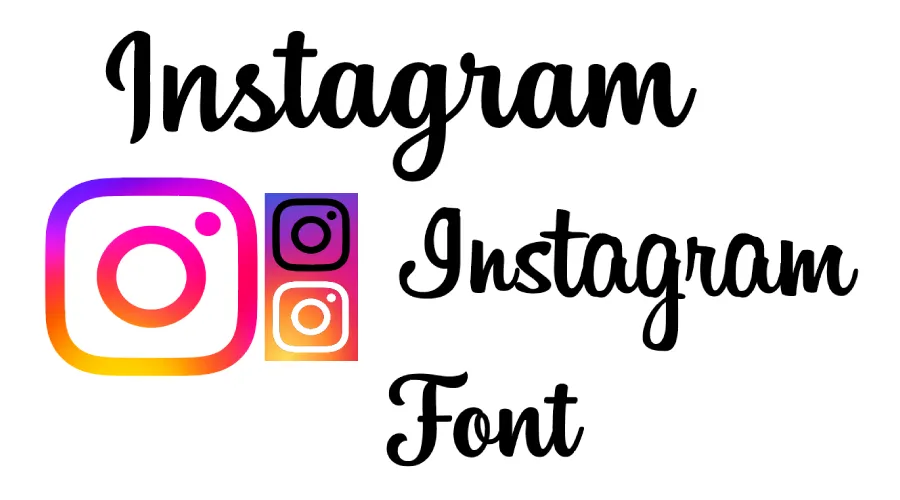
Instagram Logo Fonts
The Instagram logo, particularly the wordmark, has undergone various changes. Below I will show you year wise instagram font that is free to download and look similar to the logo font.
Instagram 2010 Logo
Instagram’s original logo, which was used from its inception in 2010 until 2016, featured a script typeface that was very similar to the Billabong font.
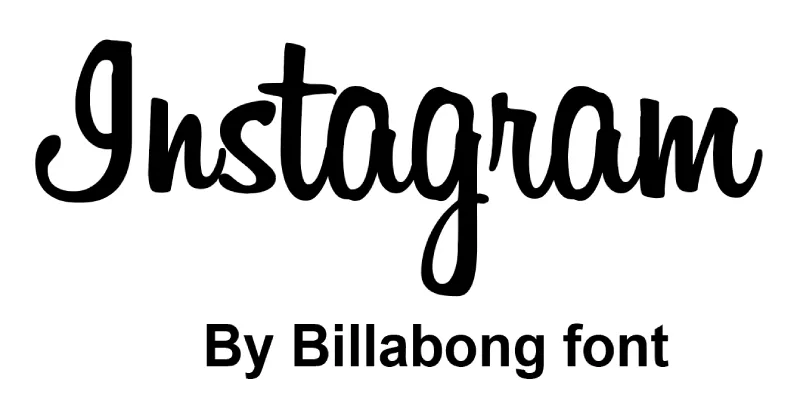
Billabong is a script font known for its casual and retro feel, which was in line with Instagram’s initial branding that focused on nostalgia and the classic, instant camera aesthetic.
Instagram 2016 Logo
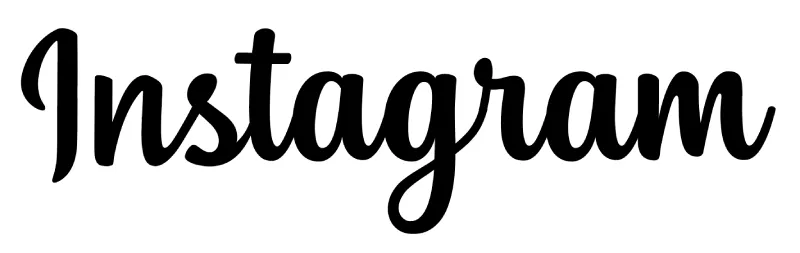
In 2016, Instagram underwent a significant rebranding, introducing a new, simplified logo. This new logo moved away from the retro script and featured a more modern, flat design with a gradient color scheme.
From my research there is a font which is very close to the 2016 Instagram Logo font is called The Grandista font, designed by Mytha Studio.
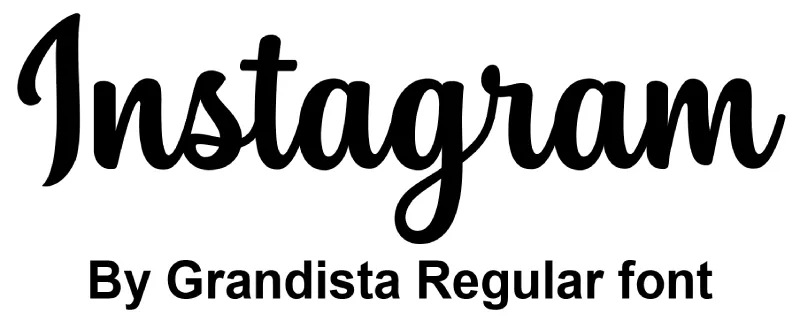
Its a decorative script typeface which can bring a sense of personality and flair into various creative projects.
Official Instagram Font
Instagram Sans is the official typeface of Instagram, introduced in 2018 as part of the brand refresh. It is a contemporary remix of grotesque and geometric styles, designed with accessibility and global scripts at the core. This font can express a range of styles in any language, from elegant to playful, casual to formal. It is used for the Instagram website and some features in the app, such as IGTV and Reels. It is also used for Instagram bio.
Freight Sans: The App Font
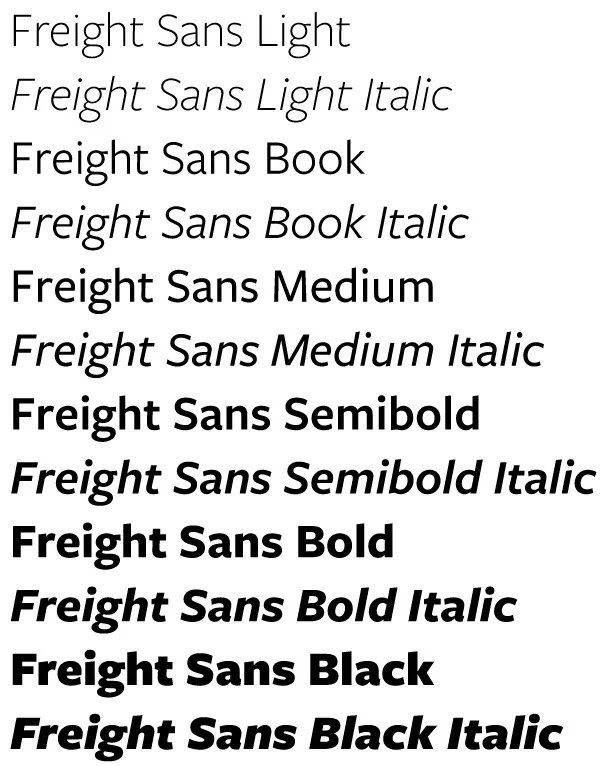
Freight Sans is a typeface that Joshua Darden designed. It is a humanist sans serif font with a friendly and approachable feel. The font used for the Instagram app interface, such as icons, buttons, menus, and captions. It is also used for some features in the app, such as Live and Boomerang.
Fonts Used in Instagram Stories
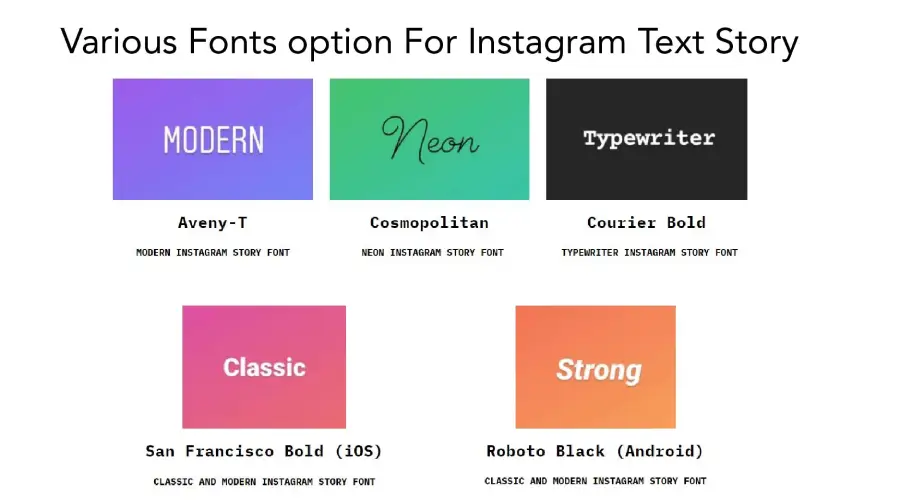
San Francisco and Roboto
San Francisco and Roboto are the system fonts for iOS and Android devices, respectively. They are also the default fonts for Instagram Stories. They are simple and versatile fonts that can suit any content. You can also change these fonts’ color, size, alignment, and background in Instagram Stories.
Aveny-T
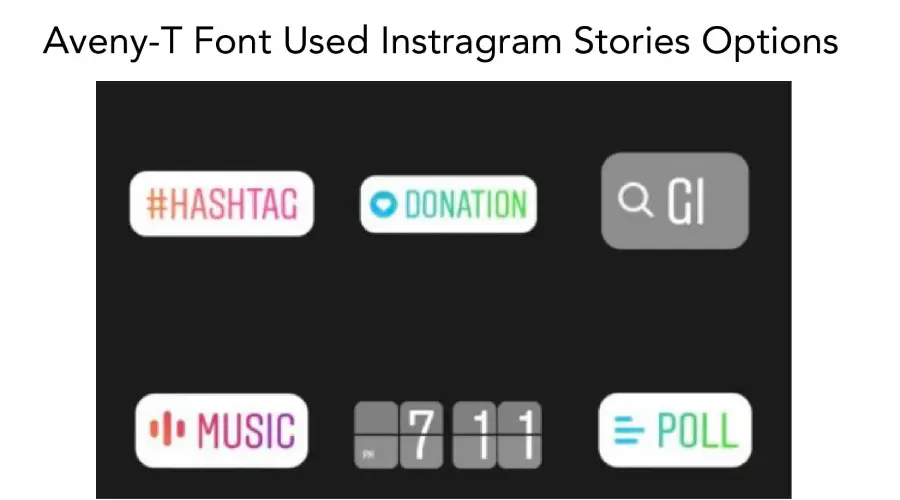
The Aveny Theatre in Copenhagen commissioned the design of Aveny-T, a typeface.It is a geometric sans serif font with a modern and elegant feel. This font one of the options that you can choose for your text in Instagram Stories under the “Modern” style. It is ideal for creating a sleek and sophisticated look for your stories.
Cosmopolitan
Neon signs and nightlife inspired the design of the Cosmopolitan typeface. It is a script font that has a glowing and vibrant effect. IThis font is one of the options that you can choose for your text in Instagram Stories under the “Neon” style. It is perfect for adding some fun and flair to your stories.
Courier Bold
Courier Bold is a typeface that mimics the appearance of typewritten text. It is a monospaced font that has a retro and nostalgic feel. This font is one of the options that you can choose for your reader in Instagram Stories under the “Typewriter” style. It is excellent for creating a vintage and authentic look for your stories.
Instagram is a platform that allows you to express yourself in many ways, including through fonts. Using different fonts on Instagram will enable you to create more engaging and attractive content for your audience. You can also convey different moods, tones, and personalities with your fonts. Whether you want to be elegant, playful, retro, or anything in between, there is a font for you on Instagram. So go ahead and experiment with different fonts on Instagram and see how they can make your content stand out.